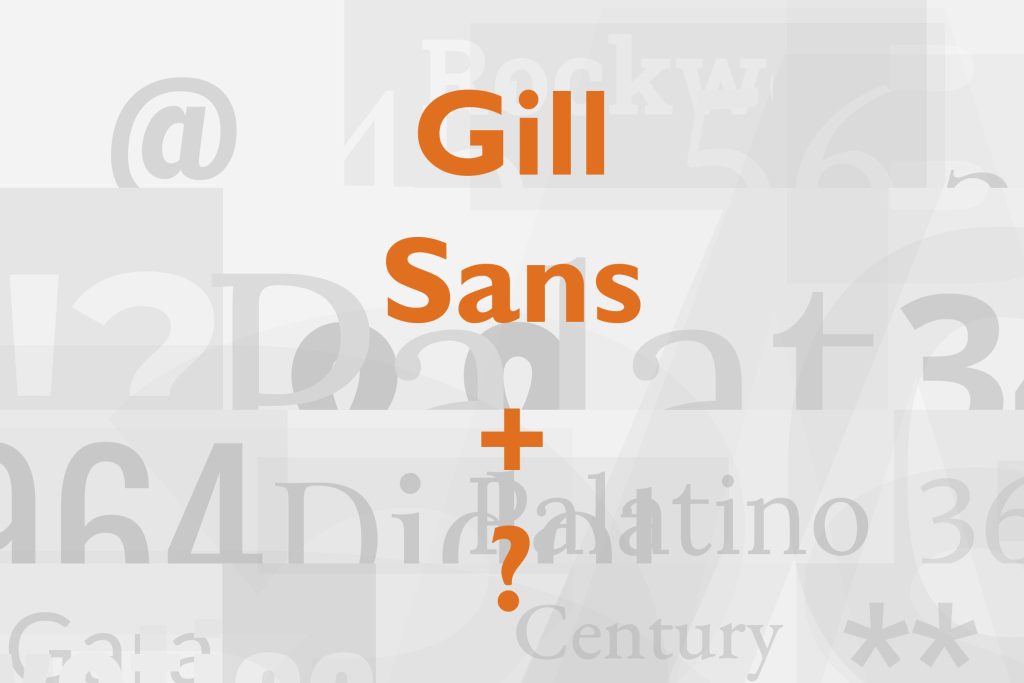
Gill Sans & Goudy Old Style
Here is a ready-made typeface pair. While I can’t say they were made for each other (Gill Sans was designed by Eric Gill in 1926 and Goudy Old Style was designed by Frederick W. Goudy in 1915—not too far apart) they come close. The generous and complimentary x-heights work well with their old-style roots. A close examination of Gill Sans reveals why they work so well: look at the lowercase “a”, “t”, and “r” for some quick visual insight into why Gill Sans works well with an old-style design like Goudy.
Gill Sans & American Typewriter
Sometimes, likely combinations are found in the most unlikely ways. When I was putting together the font combinations book, I had the opportunity to see a lot of typefaces on the same page that I would never, ever, have thought to put together. Kind of like cayenne pepper and dark chocolate. It’s reads wrong on the package, sounds wrong even suggest eating it, but when you take a bite (if you like spicy food and if you like chocolate), you have to step back in your mind and say, “Hey, that’s not too bad!” And so it is with these two typefaces. I think the playfulness of American Typewriter brings out the levity that is intrinsic to Gill Sans in the right setting. Gill Sans is the character actor of typefaces, is it not? Always odd, but somehow it works.
Here we have a classic example of where contrast between two typefaces can be made to work really well. Both typefaces are sans-serif but they share practically nothing else in common. While Gill Sans is a very quirky and thus dominant personality in most settings, the even more unique Bell Gothic tames the otherwise-wiley Gill Sans into a more submissive role. I think this font pairing is very energetic, and keeps the eye moving and dancing around the text. There is potential here to explore in a more specific context.
(Remember, all these examples are set generically, and need to be optimized in the context of a real design!)
This is a case where two sans-serif fonts work pretty well together. Some of the more geometric shapes in Gill Sans compliment the classically geometric Futura. Also, the typefaces are different enough from each other that they don’t clash. They also have similar x-heights which helps create a sense of concord, or at least a friendly nod, between these two very distinct typefaces.
I grabbed a few more samples via screen grab from the Font Combinations App. Without any further commentary on these choice I’ll let the type speak for itself:Gill Sans & Palatino
Gill Sans & Chaparral
Gill Sans & Caslon
Is Gill Sans too versatile?
It’s one of those strange coincidences, Douglas, that you should publish this article on the day after I read this old piece by Ben Archer:
My head and my heart don’t quite agree regarding the thrust of his argument. Logically, I understand all of his individual criticisms; but emotionally, when I look at a chunk of text set in Gill Sans (as opposed to looking at details of individual glyphs), I find it very satisfying. Maybe it’s because I’m British, and because I was born in the late 1950s when there was a lot of it around. Its popularity over here then dwindled for a few decades (though it was never completely absent) but it strikes me that it is making something of a comeback in recent times, perhaps due to the BBC having adopted it as its corporate face in a rebranding a few years ago.
I love Gill Sans, and find myself constantly coming back to it when I want a sans serif with more warmth than its Swiss cousins. Thanks for your suggestions; I would never have thought of combining it with American Typewriter (a face I am fond of in its own right).
I have often paired Gill Sans as headline text with Gill’s own Perpetua (serif) for body copy. Gill didn’t design them as a pair, but they work well together to my eye.
I’m not sure I agree with that article either. It is a great warmer alternative to the usual Swiss options. While we know what Gill said about it, it was in relation to the aesthetics of his own day. We are talking nearly 90 years ago. A lot has changed! We could also critique Morris Fuller Benton’s Souvenir as well as his moustache (see my typographic portrait of Benton I just posted!), and only the criticism of the mustache would pass muster based on our current understanding of proper and professional facial hair. Look at the serifs he has on that ‘stache! 🙂
All Gill Sans, all wonderful, Anglican or not. Again, the printed version is just wonderful to look at. If you have a few bucks, order a used copy just to see it as a specimen 🙂
What do you think about Gill Sans and Georgia pairing? I rarely find the paired.
I think you could make that work, but Georgia is soooo overused, and there are so many other serif choices – surely there is a more interesting option?